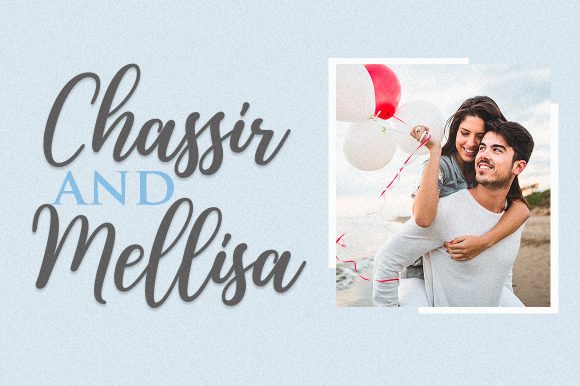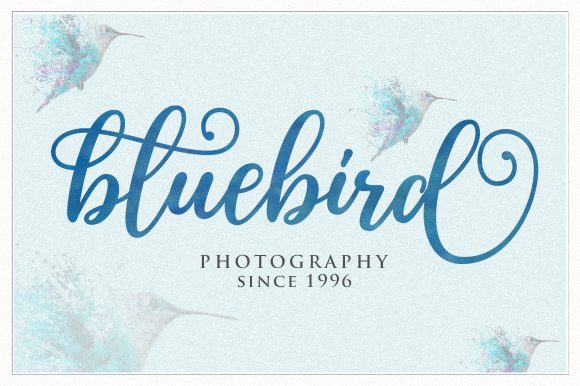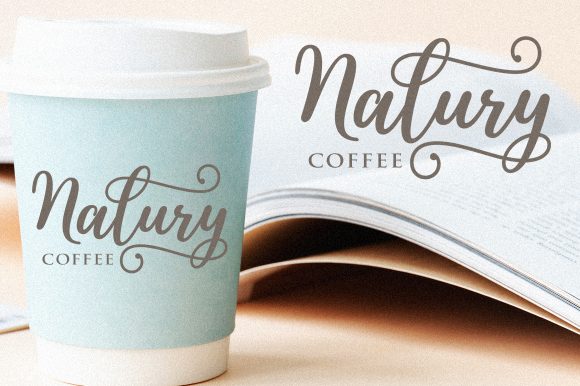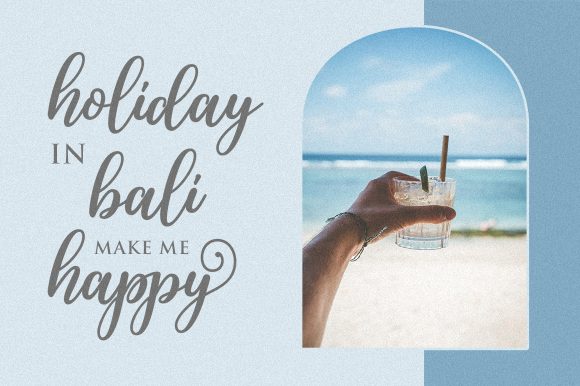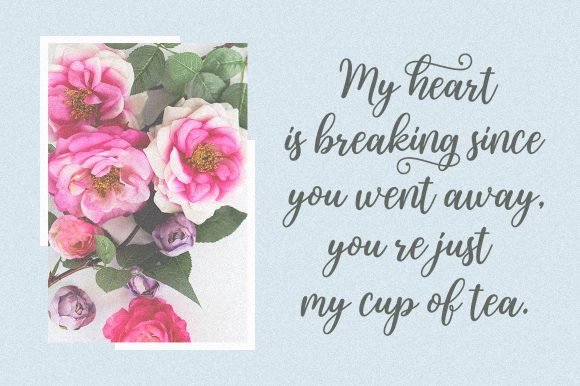
Introduction to Natalic Font
Do you remember that moment when you stumbled upon the perfect design element for your creative project? The one that instantly elevates your entire visual identity and leaves a lasting impression on your audience? For designers, finding that perfect element can be a game-changer, and that’s exactly what the Natalic Font has to offer.
As a beautiful light handwritten font with a unique feel and stunning impact, Natalic Font adds a luxury spark to any design project. Whether you’re working on a high-end brochure, a premium website, or a social media campaign, this font is sure to make your design stand out from the crowd.
With its PUA encoded features, you can access all glyphs and swashes with ease, giving you the freedom to get creative with your design. Plus, as a valuable design resource, Natalic Font is a high-quality addition to any designer’s toolkit, making it a must-have for any creative project.
Key Features of Natalic Font
- High-quality font design with a unique, modern aesthetic, making it an excellent design resource for creative projects.
- Features a large character set, including international characters, making it suitable for global design projects.
Honest Review: Natalic Font
As a designer, I’m always on the lookout for high-quality design resources to elevate my creative projects. The Natalic Font caught my eye, and I was excited to give it a try.
- Unique and elegant design style that adds a touch of sophistication to any project.
- Limited character set and language support, which may be a concern for designers working on multilingual projects.
- No bold or italic font options, which may limit its use in certain design contexts.
Overall, I’m impressed with the Natalic Font. Its elegant design style and high-quality font files make it a valuable addition to any designer’s toolkit. However, its limitations may be a concern for designers with more complex project requirements.
Tips for Getting the Most Out of Natalic Font
Use Natalic Font in combination with other design resources to create unique and eye-catching designs. Experiment with different font sizes and colors to add visual interest to your project. This high-quality font is perfect for any creative project, from logos to brochures.
Natalic Font is commonly used in design projects such as logos, business cards, and social media graphics. Its high-quality design and transparent background make it an ideal choice for designers looking for a versatile and professional font.